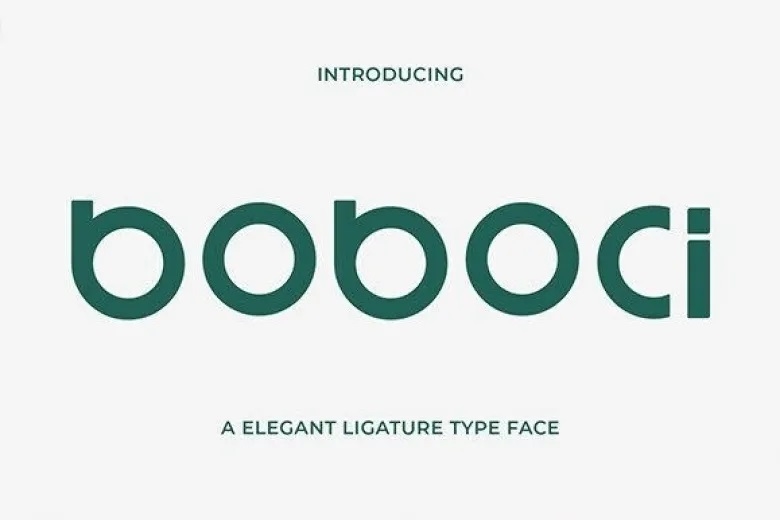
Boboci Font
Boboci is an elegant sans serif typeface which harmoniously combines the features of both classics and postmodernism. Ideal for dressing up logos, enhancing your magazine layouts, or simply taking your social media page to the next level, this clean looking and well balanced font will perfectly complement any current or future design project it’s used in. Boboci is simply a unique addition that will give a taste of sophistication that is needed in any Art Studios.
Boboci Sans Serif Font